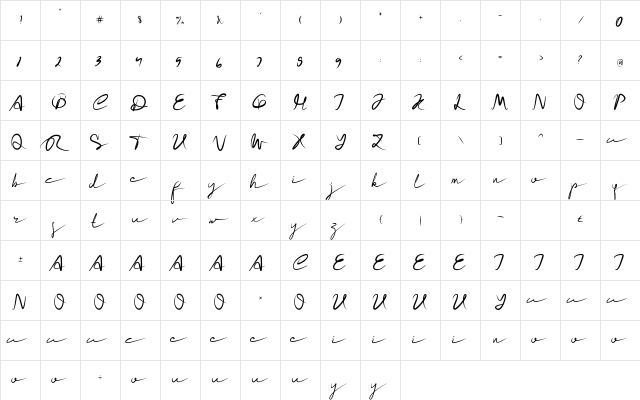
ResscuDoffcu Regular
Design Context for ResscuDoffcu Typeface
ResscuDoffcu is a composed and adaptable typeface that performs quietly and consistently across a wide range of design contexts.